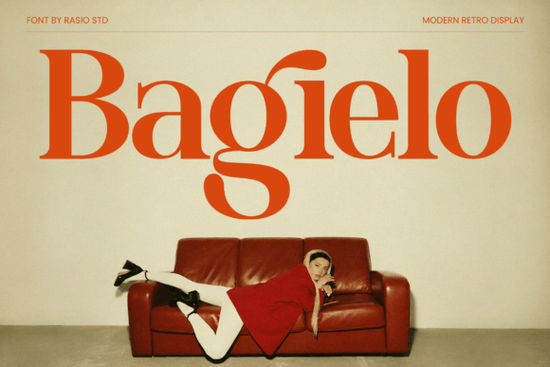
The Bagielo Font is a bold serif typeface with a vintage-meets-modern feel. If you're working on branding, packaging, editorial layouts, or social media graphics, this typeface brings a confident, eye-catching presence that's hard to ignore. It was designed for large-format display use, which means it looks its best at bigger sizes think headlines, logos, and poster-style compositions.
What Makes Bagielo Different From Other Serif Fonts?
There's no shortage of serif fonts out there. So what sets Bagielo apart? It comes down to the combination of decorative serif detailing and a bold display structure. Most vintage-inspired serifs lean either too traditional or too ornate. Bagielo sits in a sweet spot it has enough personality to feel expressive, but it stays clean enough to remain readable in professional contexts.
The letterforms have a strong vertical presence with subtle curves and serifs that add depth without cluttering the design. This makes it a practical choice when you want something with character but don't want to sacrifice clarity.
If you've explored other serif options from Creative Fabrica like Romance Vintage or Mellos, you'll notice Bagielo leans more toward a contemporary display aesthetic. It doesn't try to mimic old printing presses instead, it takes vintage cues and gives them a modern polish.
What Can You Use Bagielo For?
Bagielo works well across a range of design applications. Here are some of the most common uses:
- Brand logos and identity systems Its bold structure makes it a solid pick for logotypes, especially for brands in fashion, lifestyle, food, or artisan products.
- Magazine covers and editorial layouts The decorative serif details add a layer of visual interest that works well in print-heavy designs.
- Product packaging and labels Think wine bottles, candle boxes, gourmet food packaging anywhere a refined but bold typeface fits the brand personality.
- Advertising and promotional graphics Posters, flyers, banners, and digital ads where you need a headline that grabs attention.
- Social media content Quote graphics, announcement posts, and branded templates that need a typeface with presence.
- Print-on-demand products T-shirt designs, tote bags, mugs, and other merchandise where bold typography is the main visual element.
It's worth noting that Bagielo is a display typeface. That means it's built for larger sizes. Using it for body text or long paragraphs isn't recommended the details that make it special at headline size can become a distraction at smaller sizes.
Who Should Consider Using This Font?
Bagielo is a good fit if you're a:
- Graphic designer working on branding or editorial projects
- Small business owner creating packaging, menus, or signage
- Print-on-demand seller designing bold typographic products
- Crafter or hobbyist making invitations, greeting cards, or wall art
- Social media manager building a consistent visual brand
If your work involves creating visual identities or promotional materials, having a typeface like Bagielo in your font library gives you a reliable option for projects that call for bold, expressive serif styling.
How Does Bagielo Compare to Similar Fonts?
If you're browsing serif fonts on Creative Fabrica, you might also come across Bagielo alongside options like Romance Vintage and Mellos. Each has its own strengths:
- Bagielo leans modern-display with decorative serif accents best for bold headlines and branding.
- Romance Vintage has a more classic, old-world charm suited for elegant and romantic designs.
- Mellos offers a softer, more understated serif feel that works well for refined, minimal compositions.
Choosing between them depends on the mood you're going for. Bagielo is the strongest choice when you want a confident, contemporary look with vintage undertones.
Practical Tips Before You Start Designing
Here are a few things to keep in mind when working with Bagielo:
- Use it at larger sizes. This is a display font set your headlines at 36pt or above for the best results.
- Pair it with a simple sans-serif. A clean sans-serif for body text balances out Bagielo's personality without competing for attention.
- Test in context. Preview the font in your actual design layout rather than relying on isolated samples.
- Use high contrast. Bagielo reads best when there's strong contrast between the text and the background.